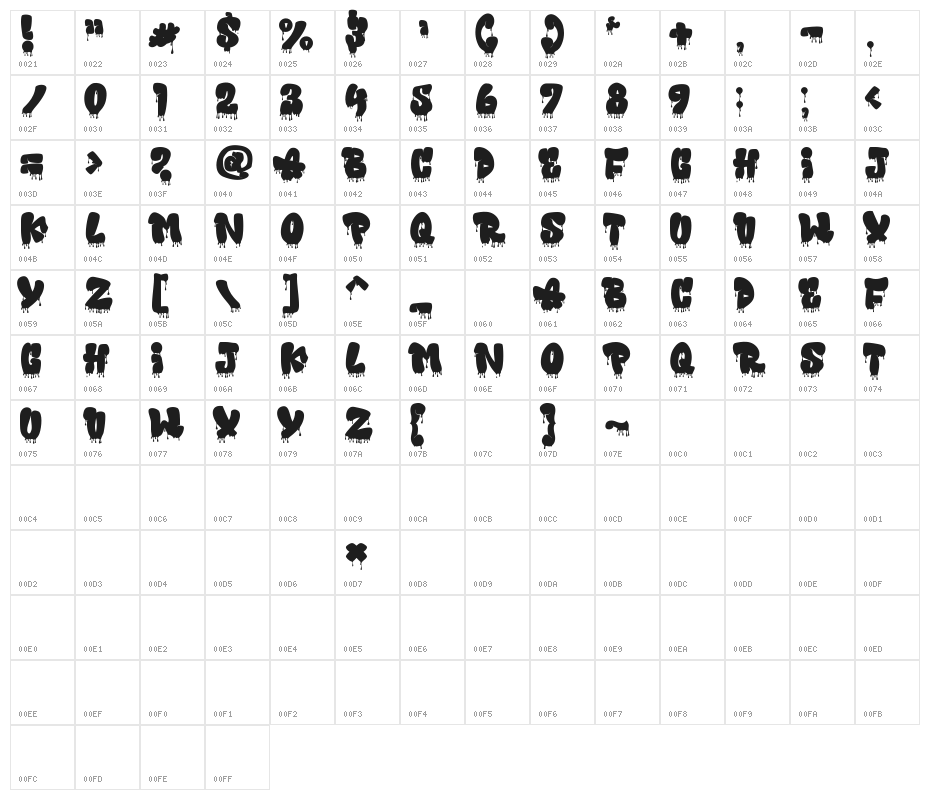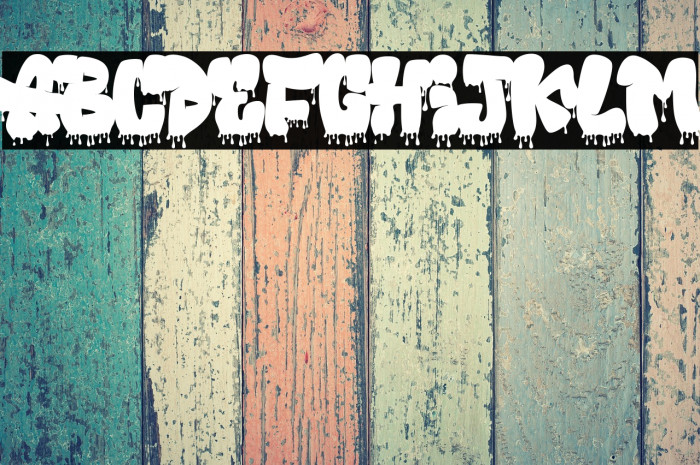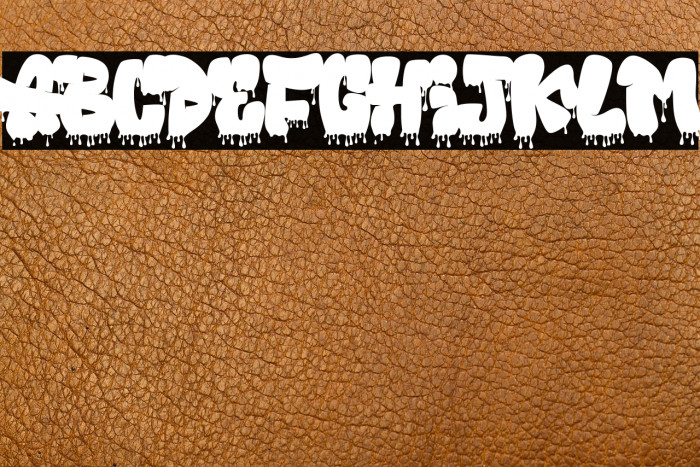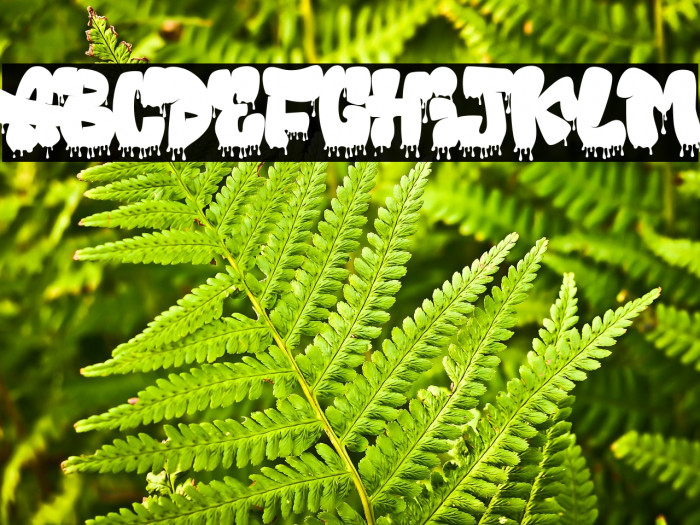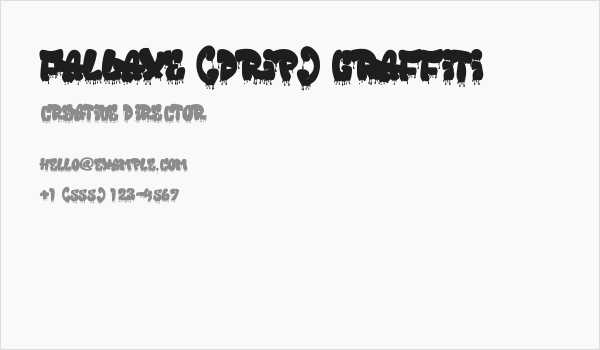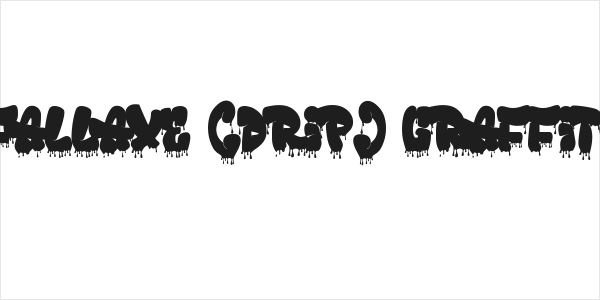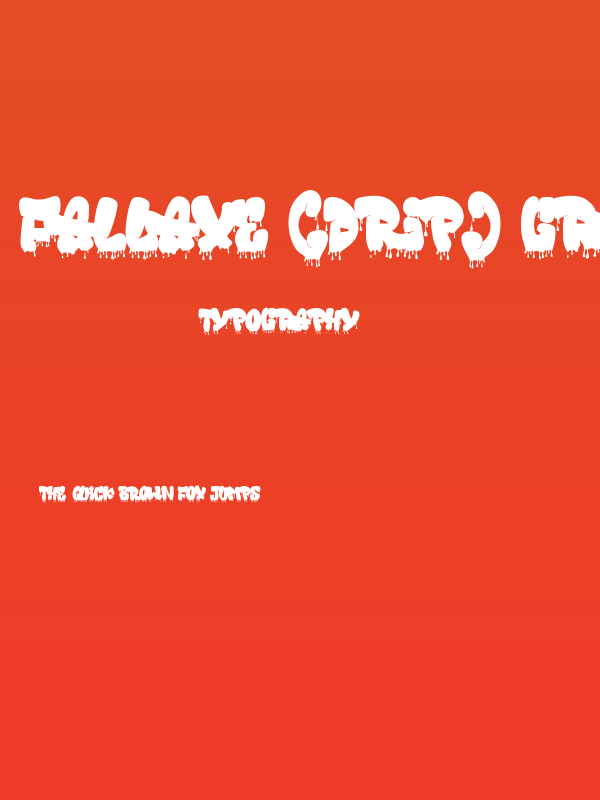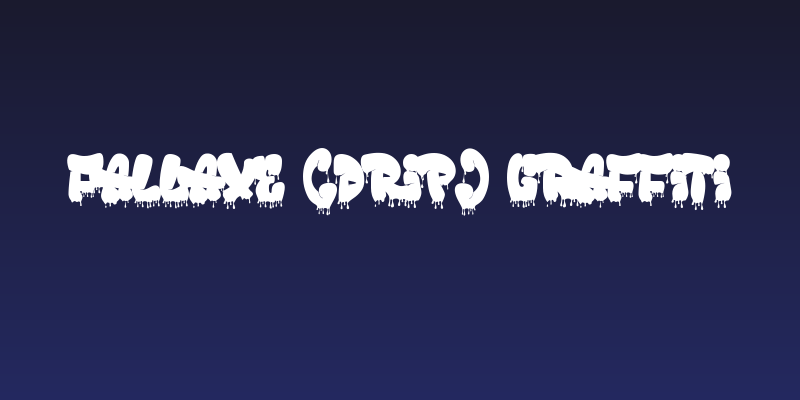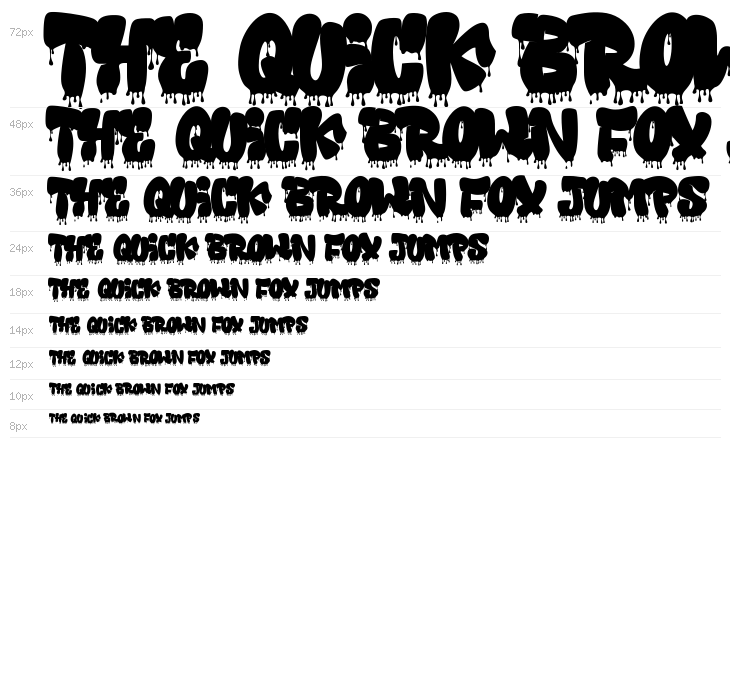
Fallaxe (Drip) Graffiti Font
Fallaxe (Drip) Graffiti Description
This font features a bold, graffiti-inspired style with a distinctive dripping effect that gives each character a dynamic and edgy appearance. The letters are thick and rounded, creating a sense of movement and fluidity, reminiscent of street art and urban culture. The dripping effect adds a playful yet rebellious touch, making it stand out in any design. The characters are closely spaced, enhancing the cohesive look of the text. This font is perfect for projects that aim to capture a youthful, energetic vibe, and it works well in contexts that require a strong visual impact.
Overall StyleUrban, Edgy, Playful
Proposed ProjectsIdeal for street art designs, urban-themed posters, music album covers, and edgy branding projects.